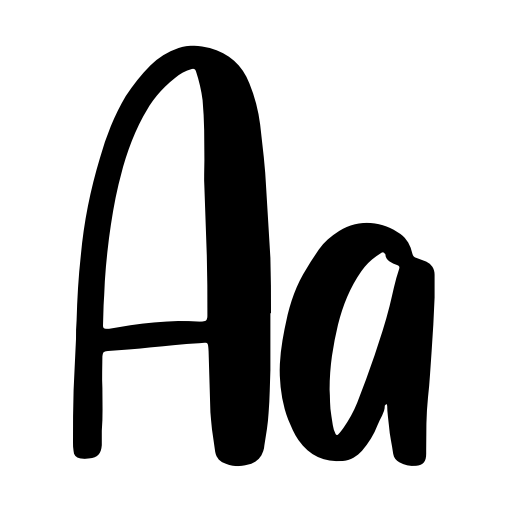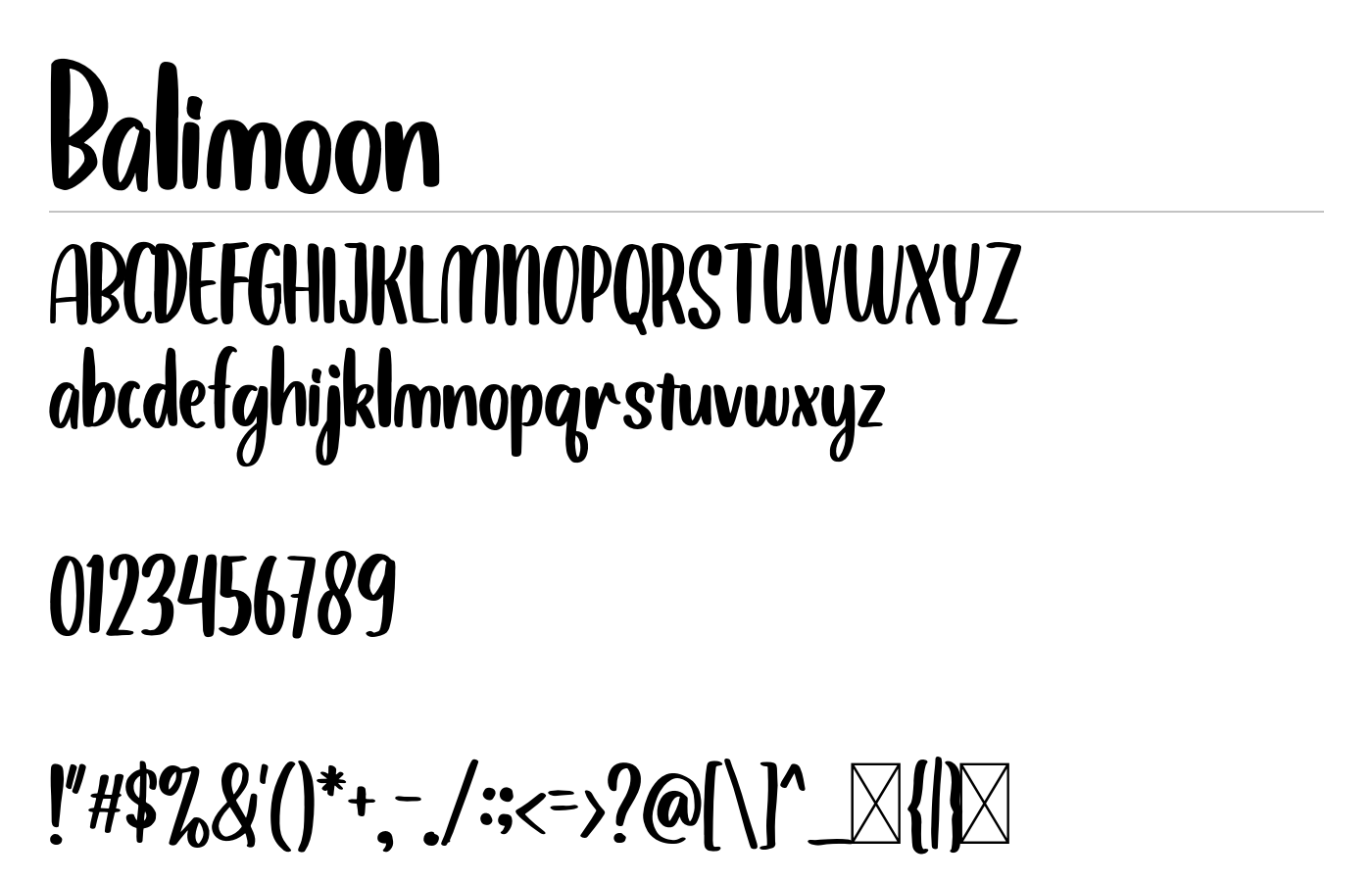
Balimoon is a playful and casual sans serif font with a hand-drawn feel, featuring tall, narrow letterforms and moderate stroke contrast. Its lively, slightly irregular shapes give it a friendly and approachable personality, making it ideal for creative projects, informal branding, and youth-oriented designs. This font works well in headlines, logos, and packaging where a fun, energetic vibe is desired.
Balimoon Font
About Balimoon Font
| Designer | Alit Suarnegara |